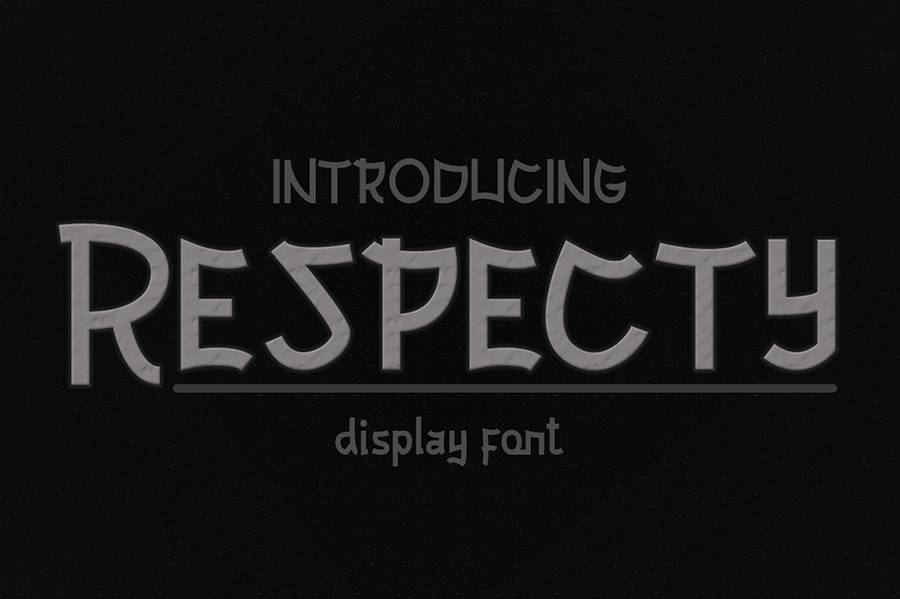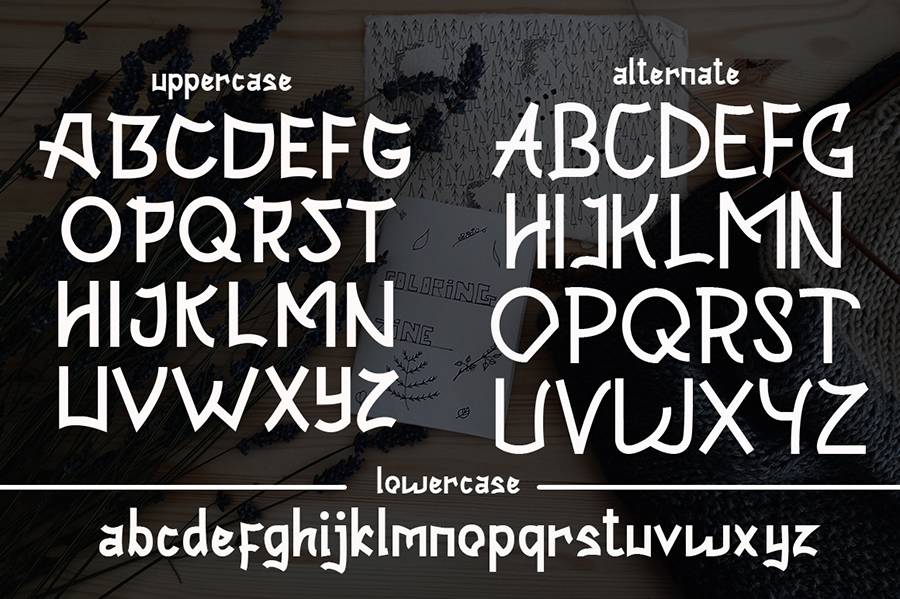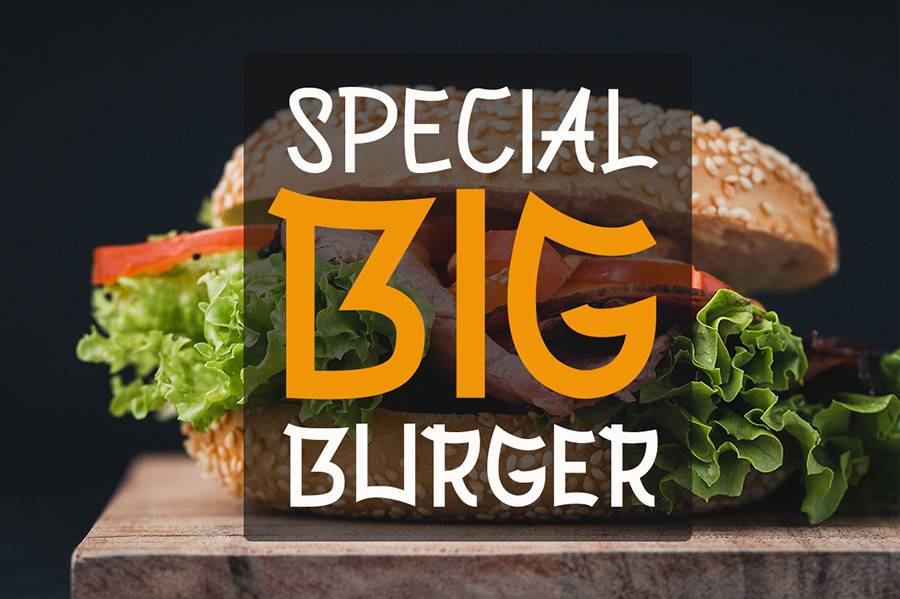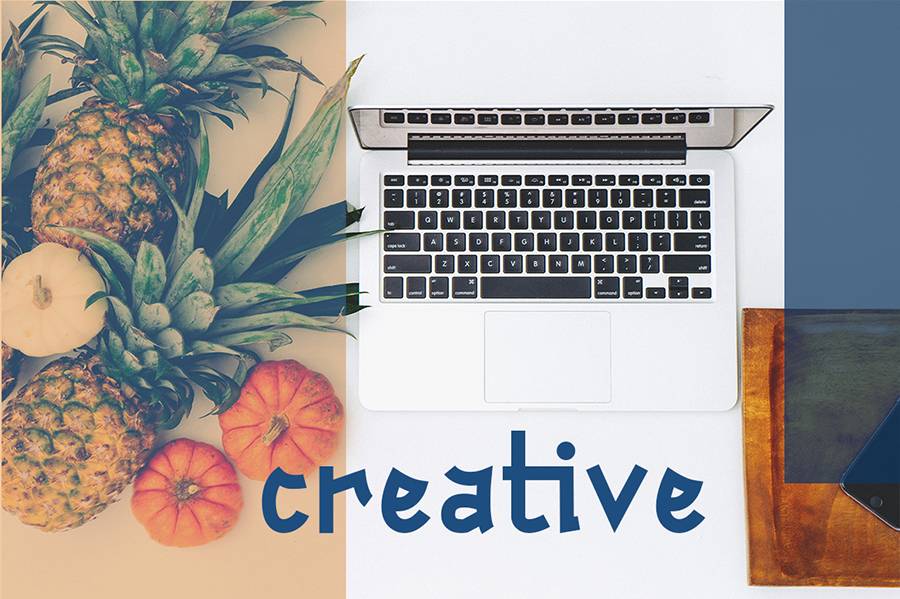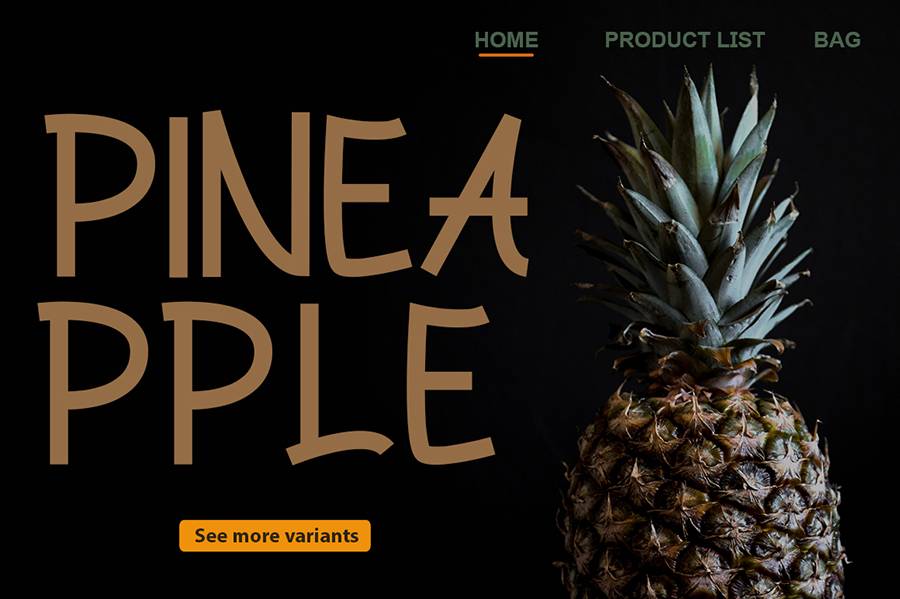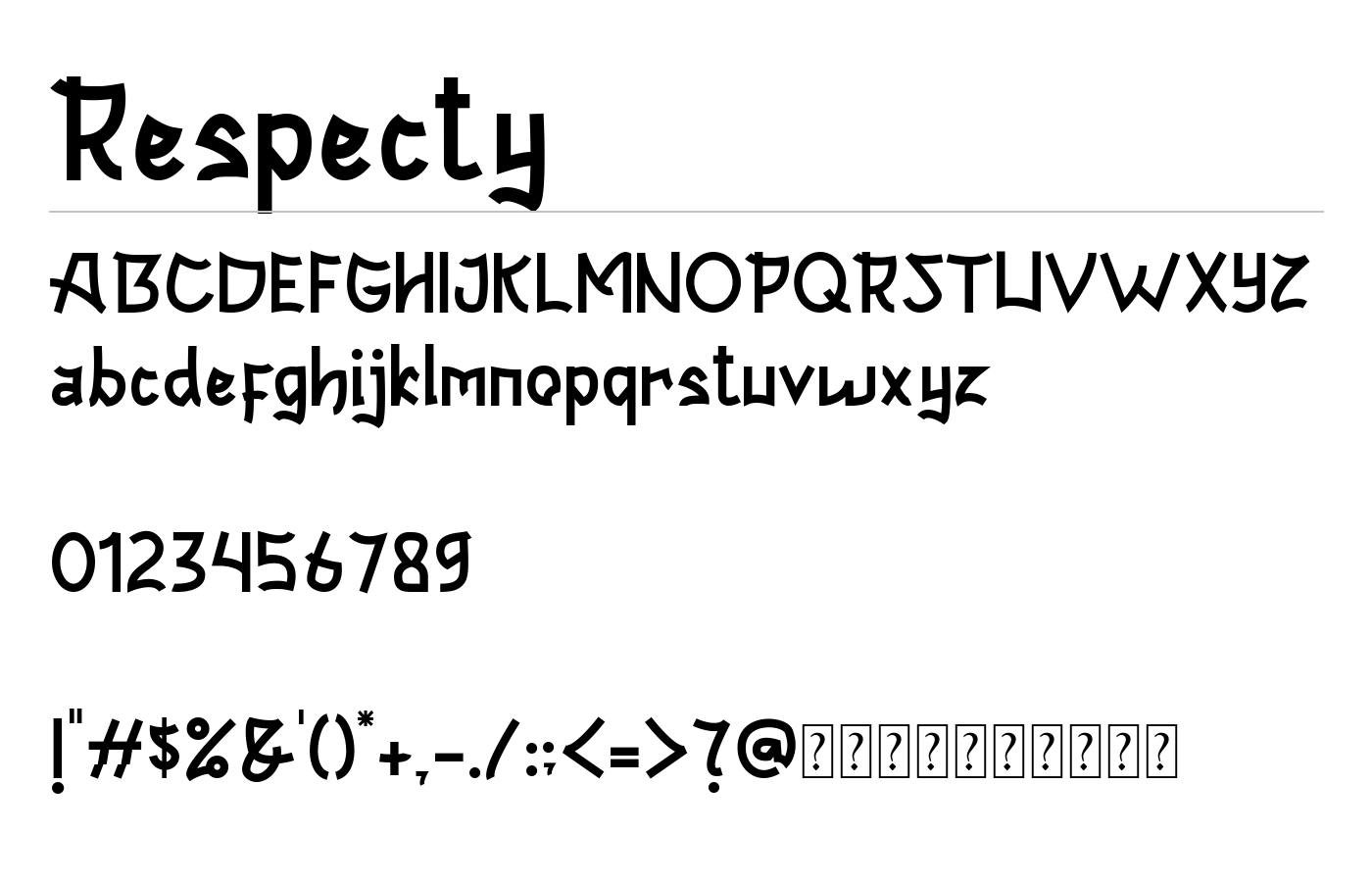
Respecty Display Font Demo
Respecty Display Font Demo is a Display font that is suitable for posters, books, broaches, videos, and more. You can combine letters. Uppercase and Alternate to get more feel and variations, because Respect font has a stylistic alternate of letters A Uppercase to Z Uppercase.